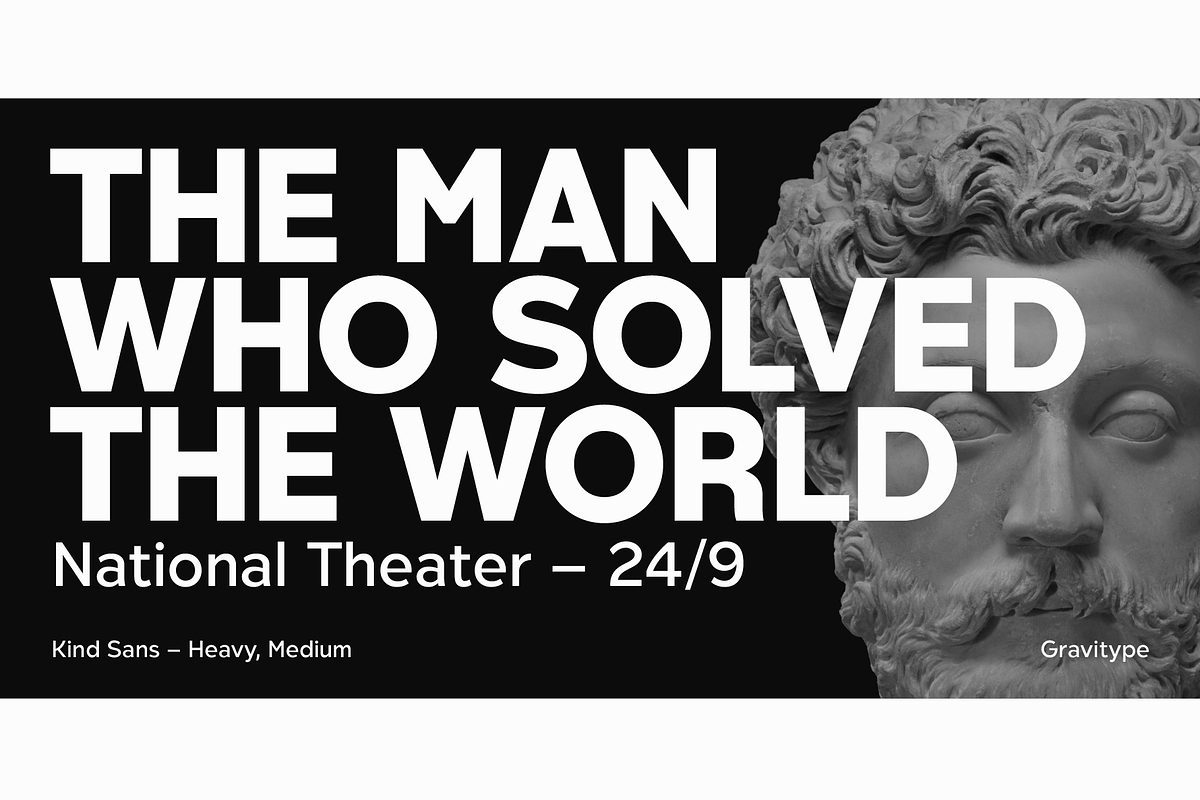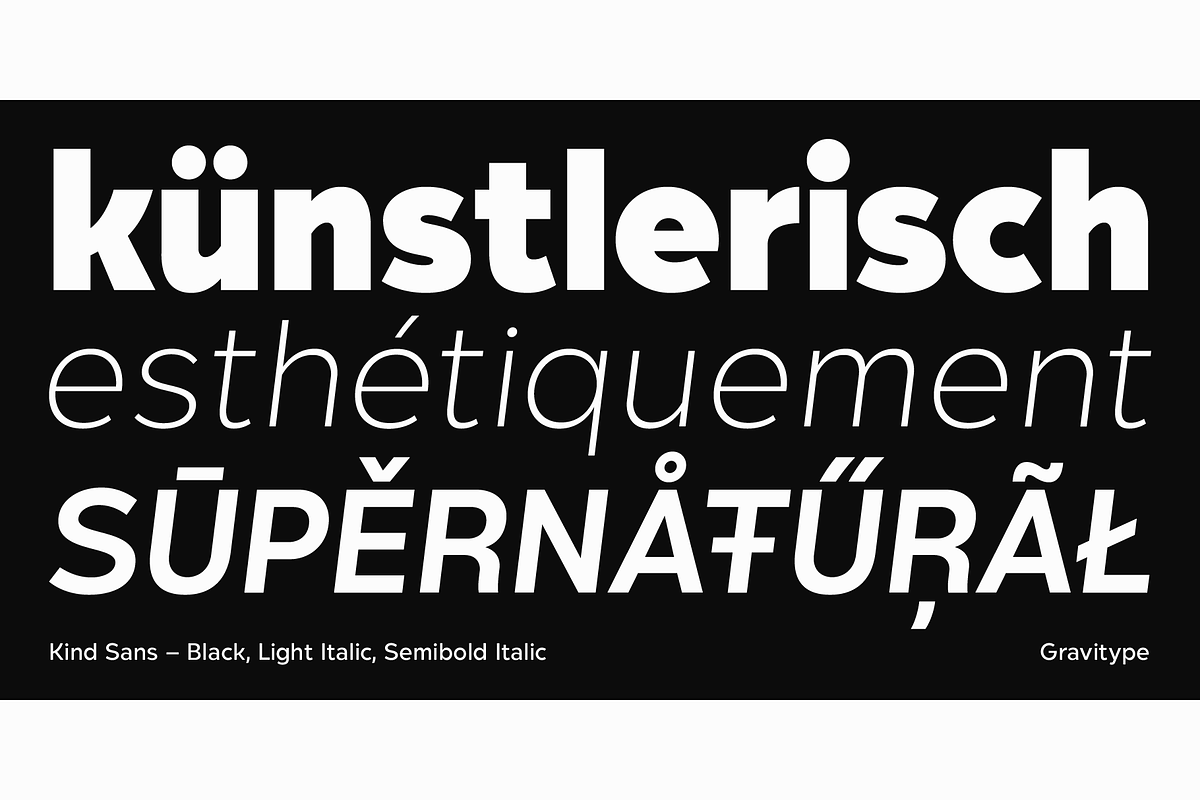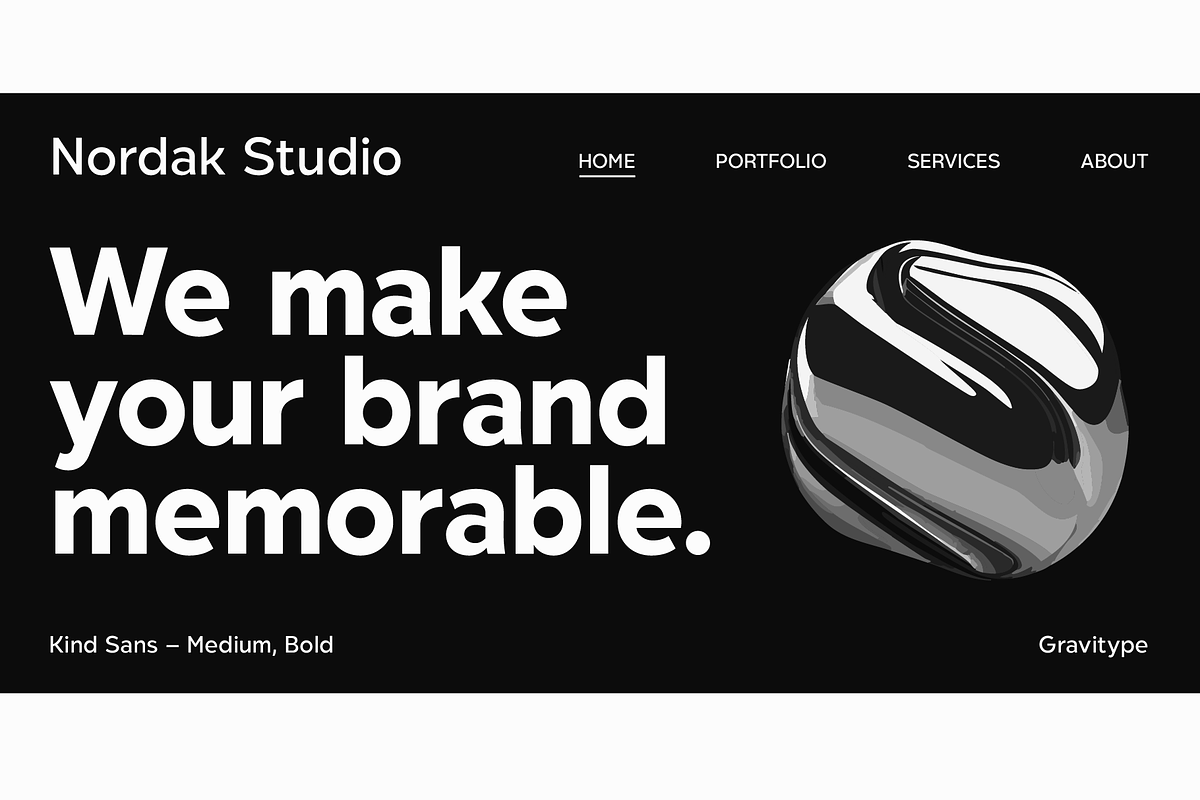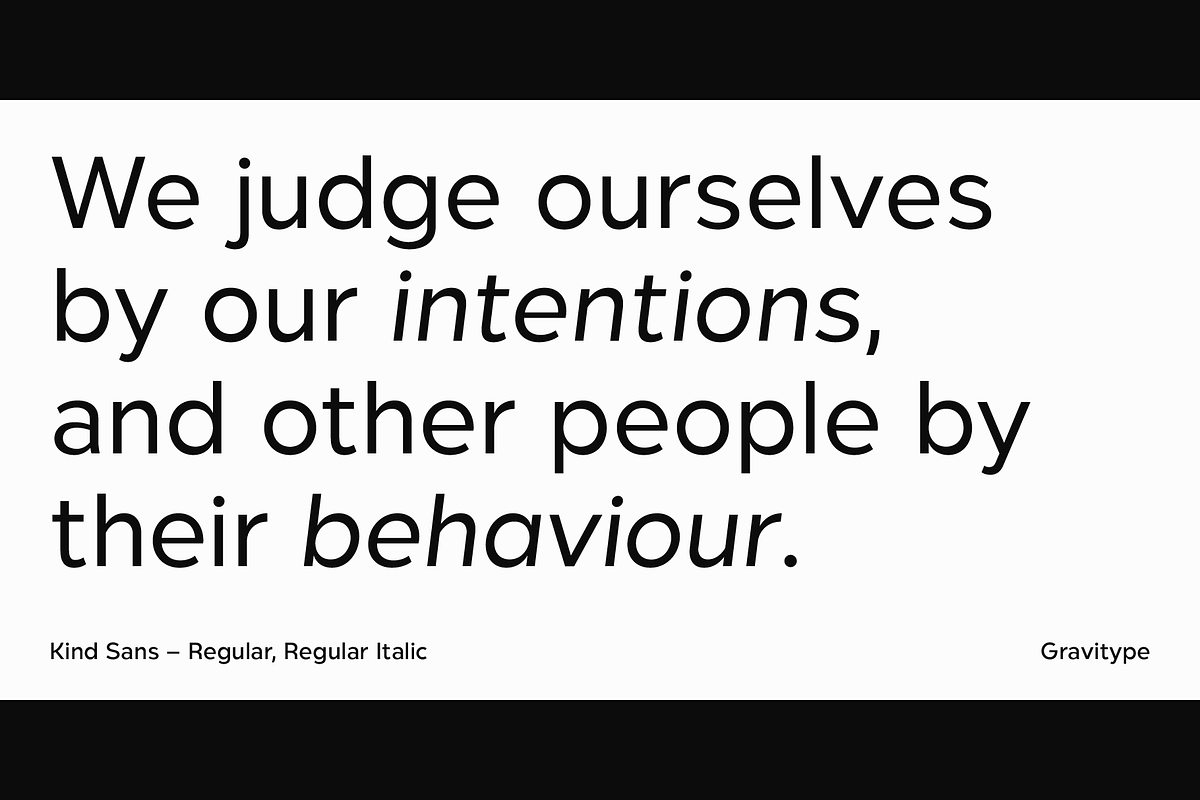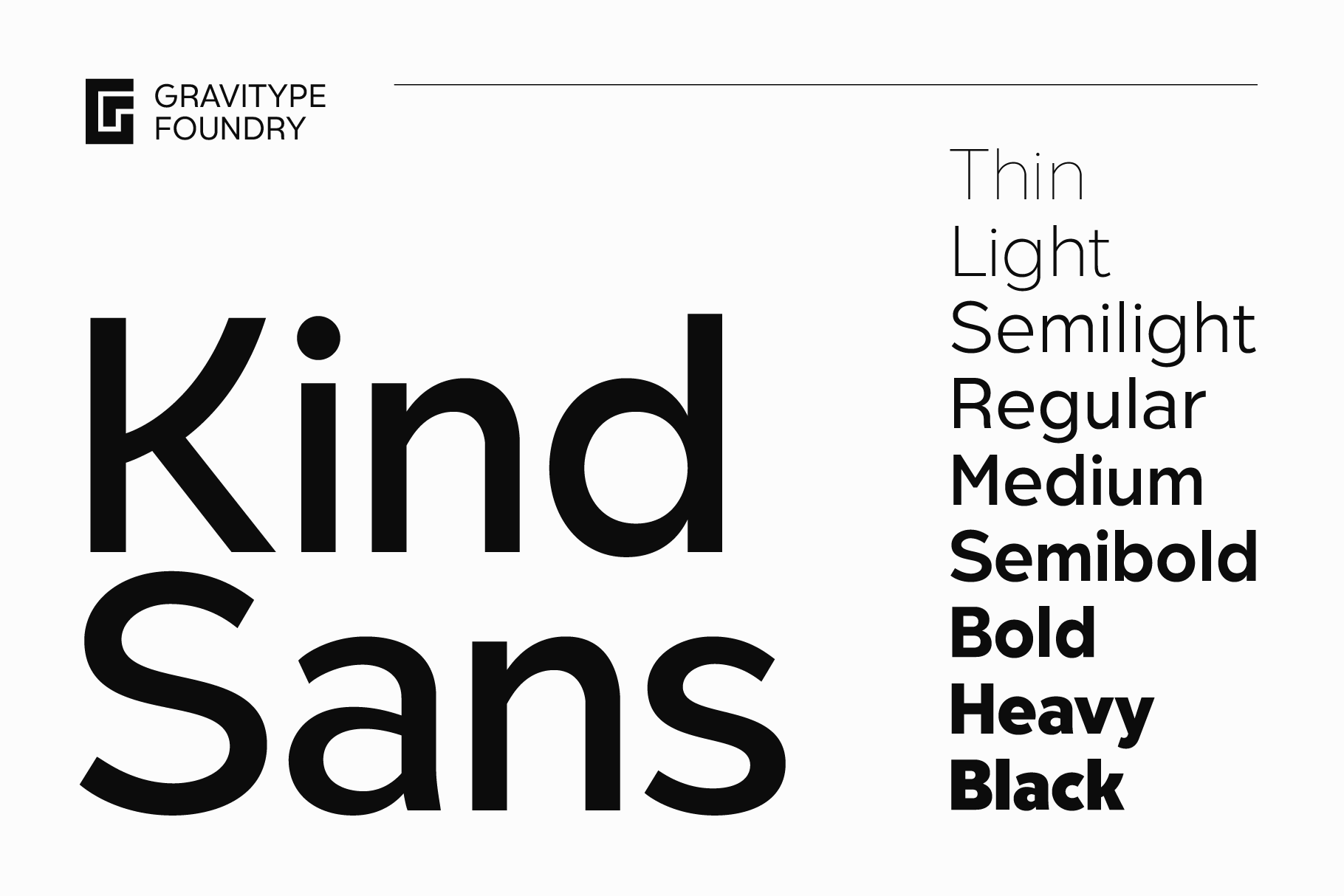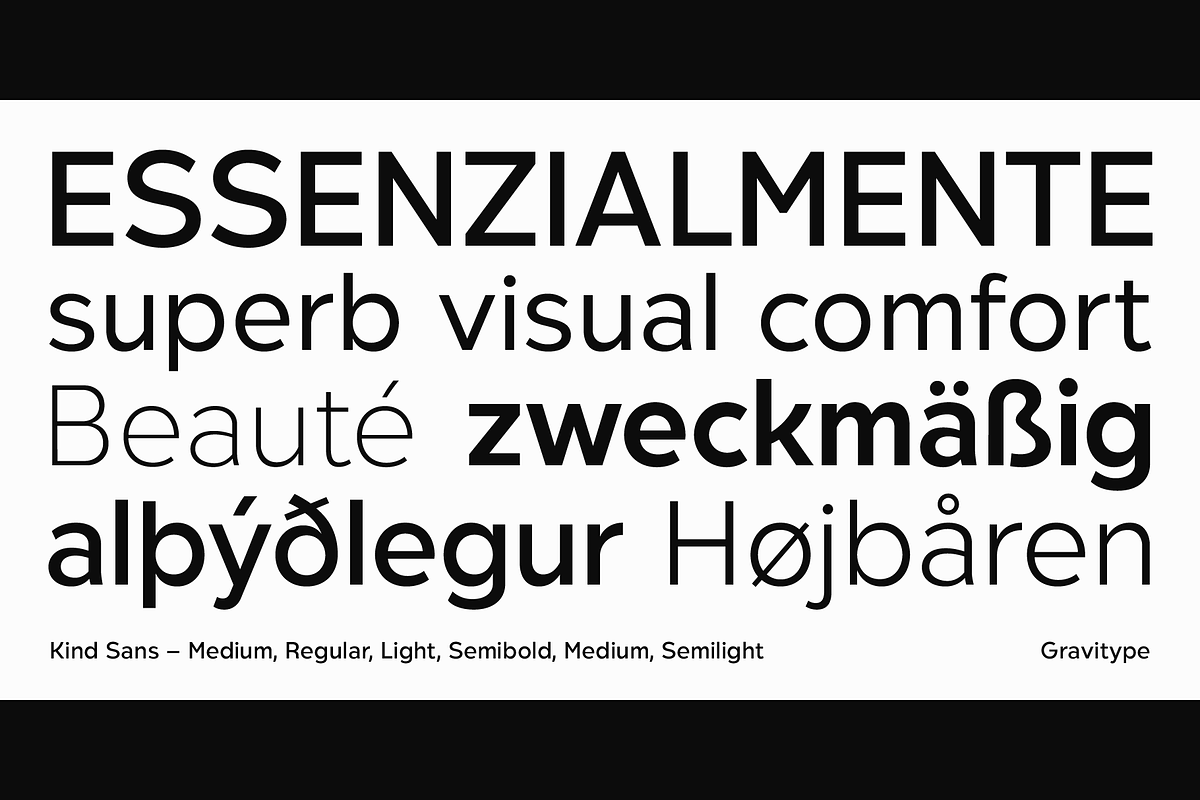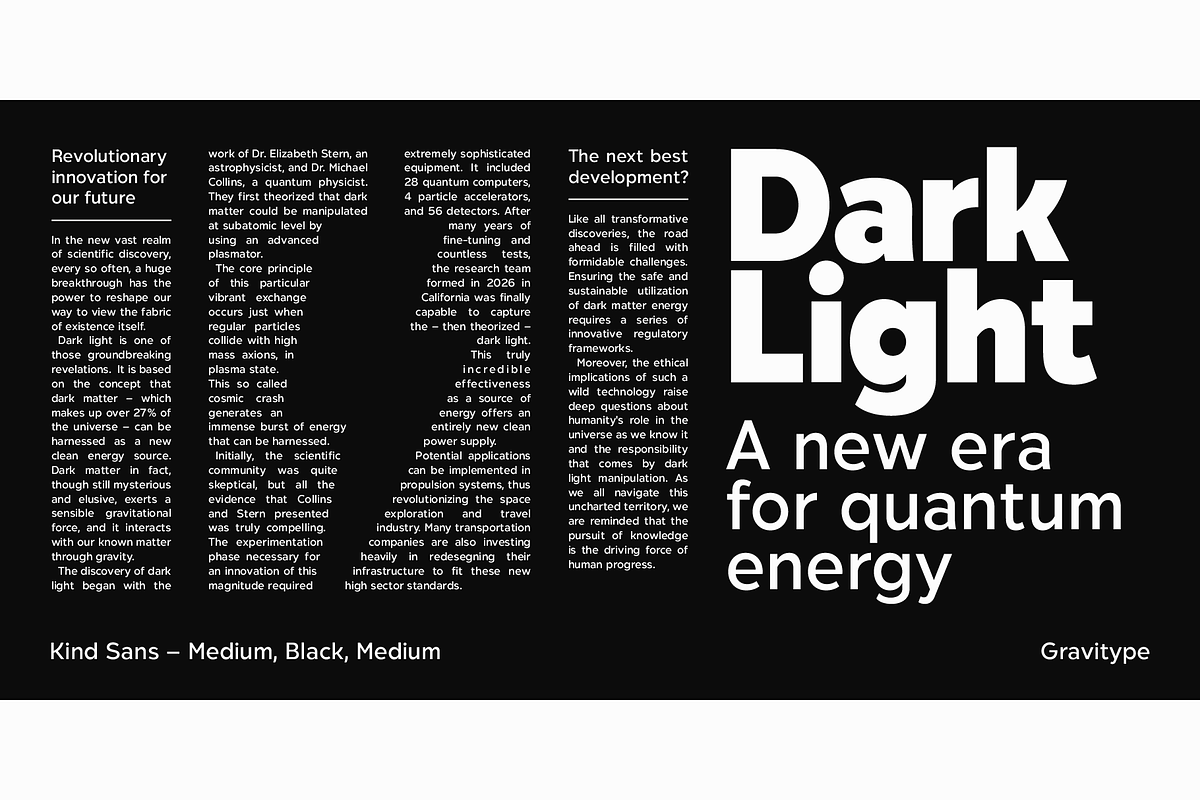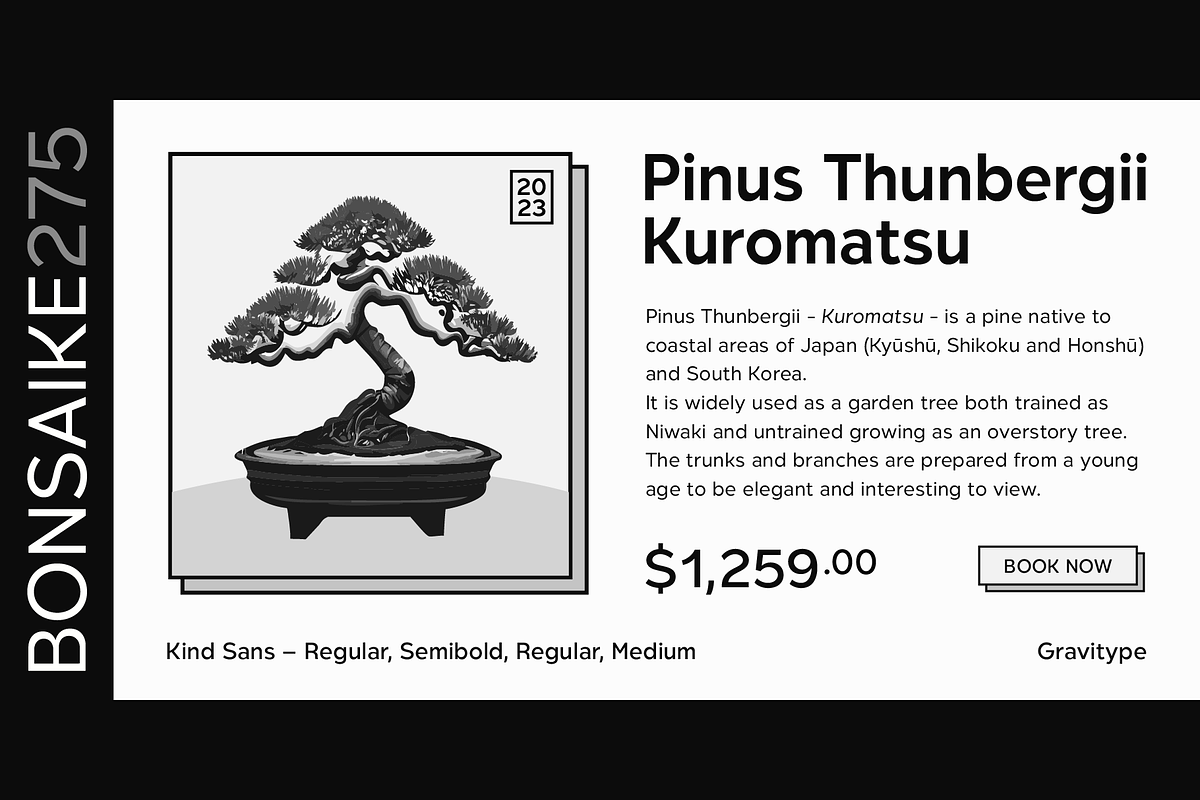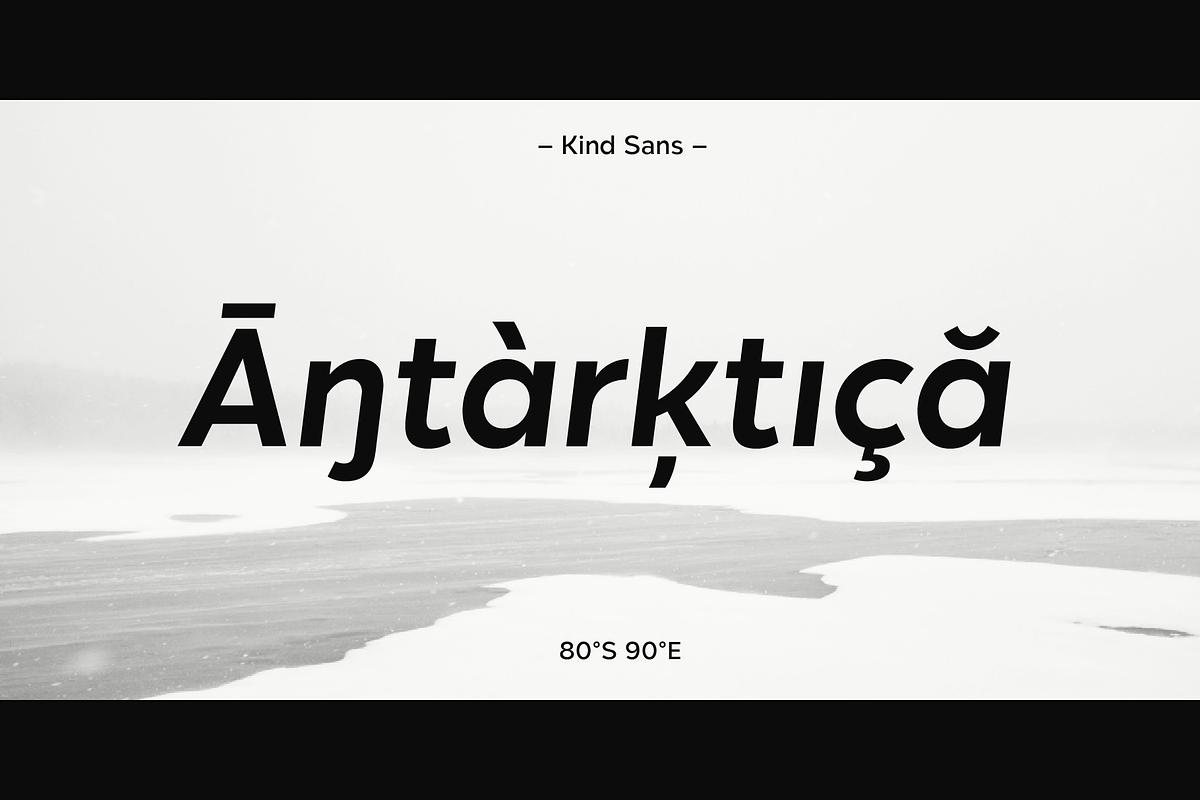
Kind Sans - Humanist Font Family
Kind Sans is a refined sans serif designed to be easily approachable. With its clean lines and gentle curves, Kind Sans radiates an inviting appearance that adds a touch of humanity to any text. Legibility and visual comfort are at the heart of this typeface, which aims to offer a pleasing reading experience.
The font family features 9 uprights and 9 italics, offering exceptional versatility to multiple design purposes. The type system is completed with alternates, ligatures, ordinals and fractions.
More than functionality. Kind Sans also embodies commitment to aesthetic excellence; its unique style displays a perfect balance between simplicity and elegance. Harmony and recognizability were key concepts to focus on while crafting the glyphs.